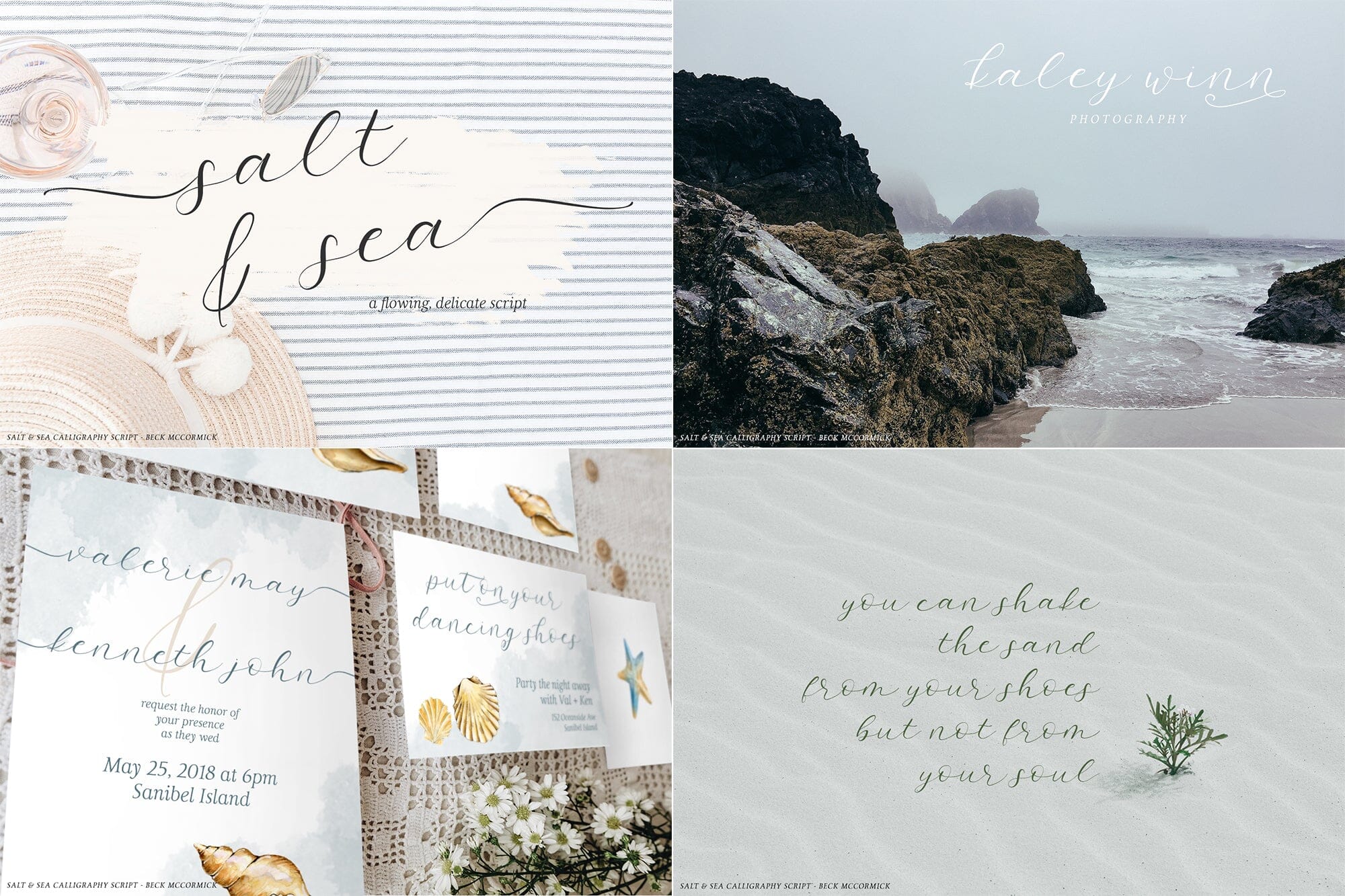
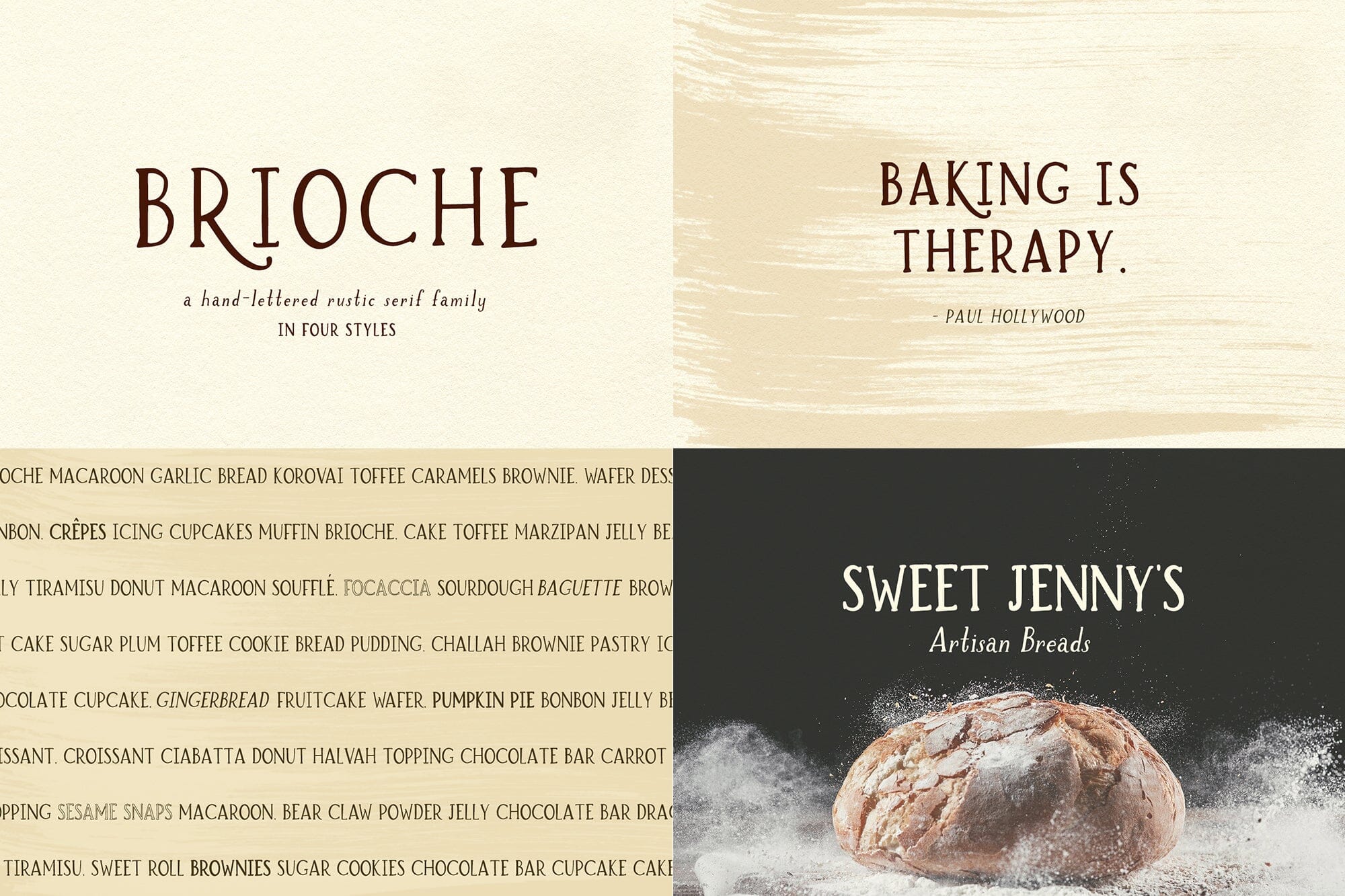
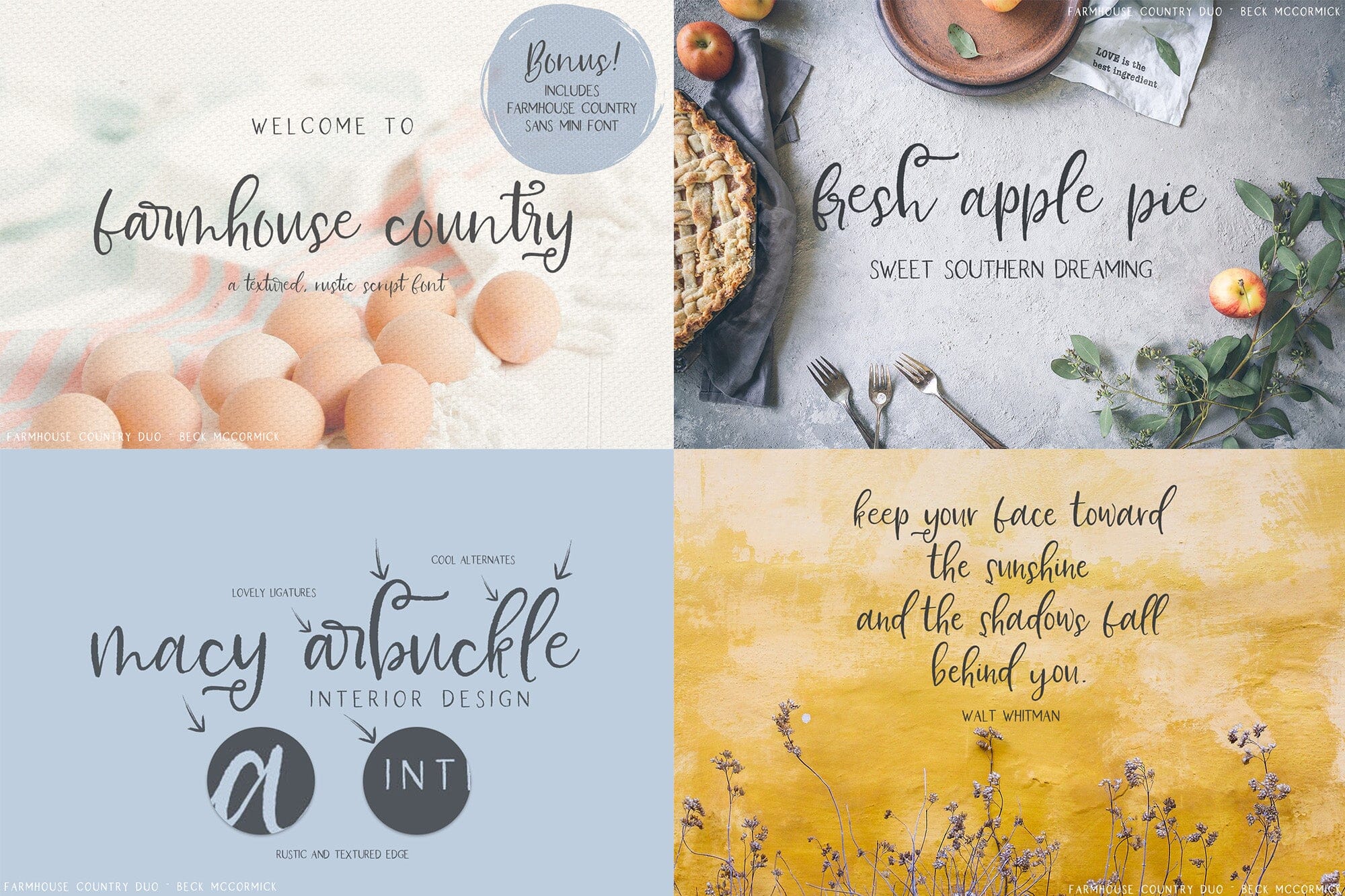
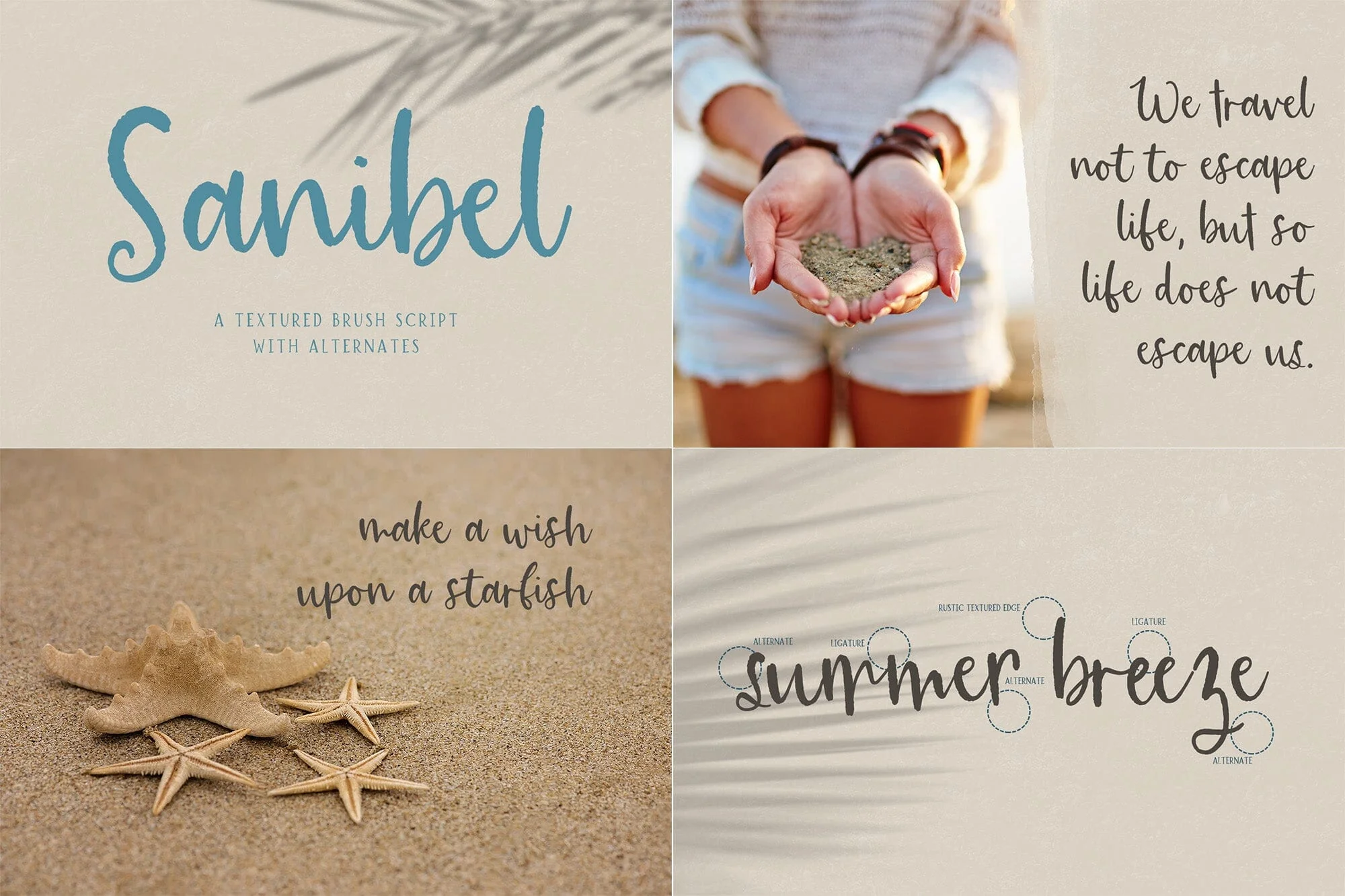
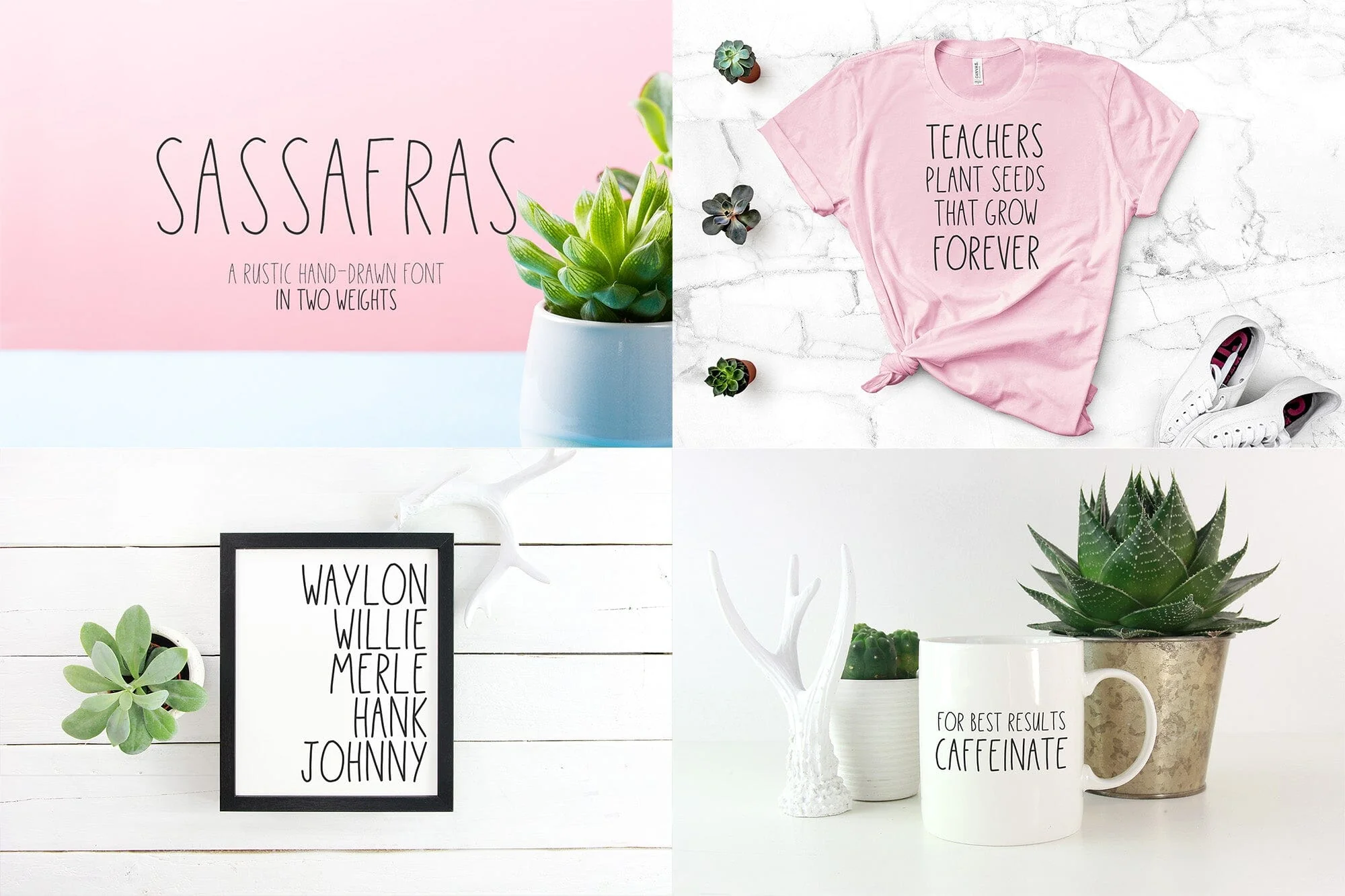
The Farmhouse Font Bundle
Introducing the Farmhouse Font Bundle! Ā This bundle is full of shabby chic, rustic font goodness, and includes an excellent variety of styles - rustic serif fonts, sans fonts, and beautiful script fonts. Ā In this bundle, youāll find:
- my best-selling Farmhouse Country Duo (two fonts) - this Script font is paired with the most adorable farmhouse sans
- the Brioche family (four fonts) - regular, bold, italic, and outline styles included
- Sanibel Script - this script font is feminine but simple
- River Road Typewriter Serif - this display font is playful & easy to read
- Salt & Sea Calligraphy Font - a beautiful, flowing script font with swashes, perfect for logos, weddings, & more
- and Sassafras Sans in two weights (two fonts) - a Rae Dunn-inspired font so you can truly show off your farmhouse style by making your own labels, use for branding, and a variety of other projects!